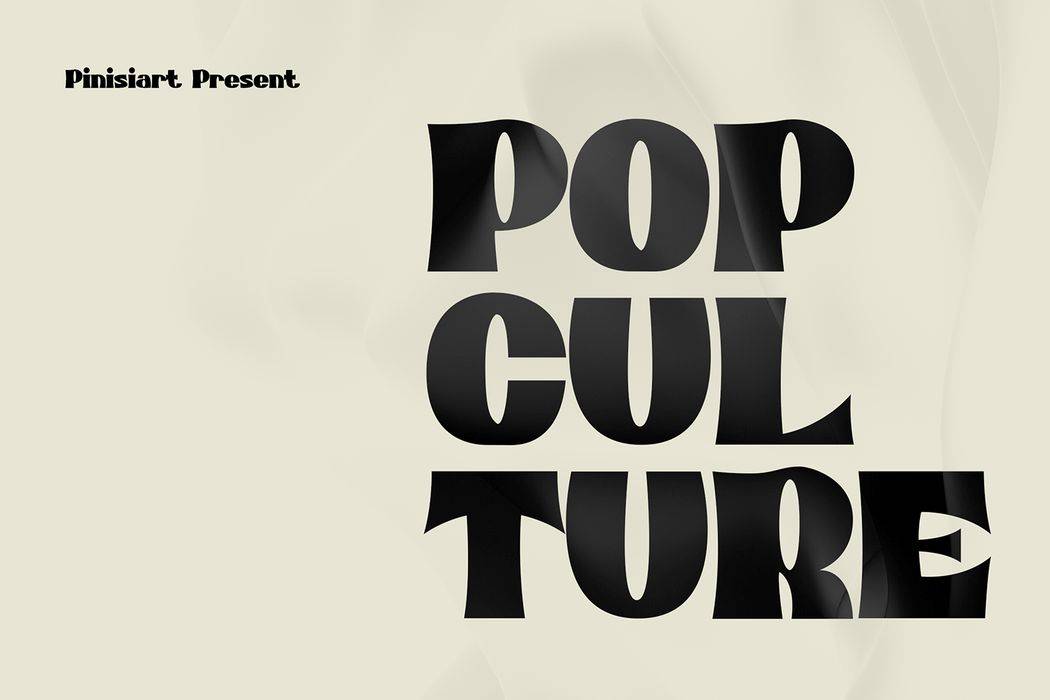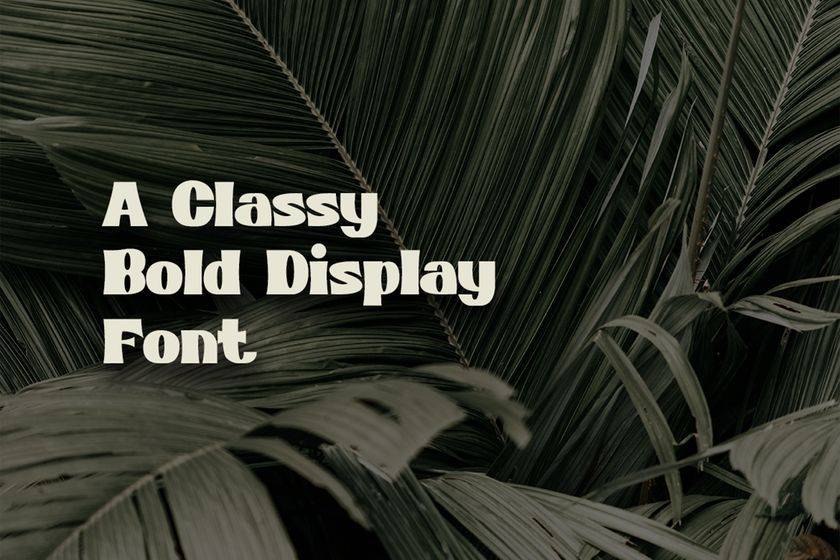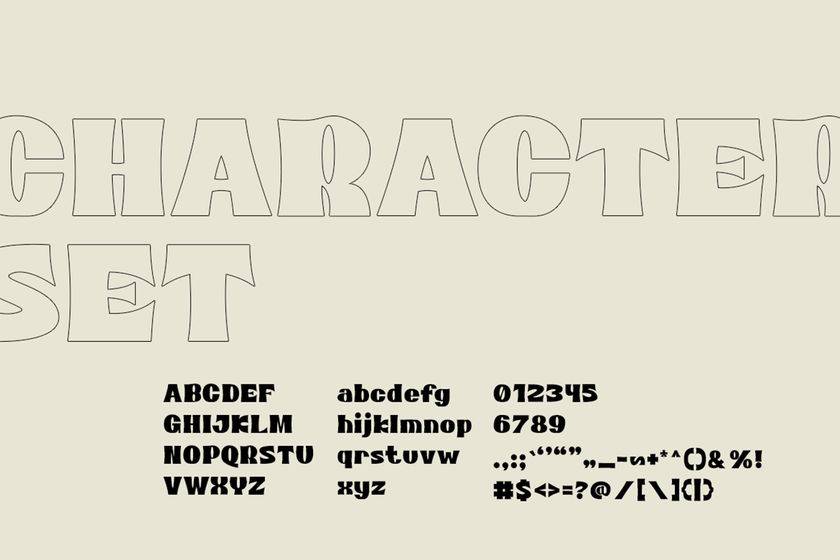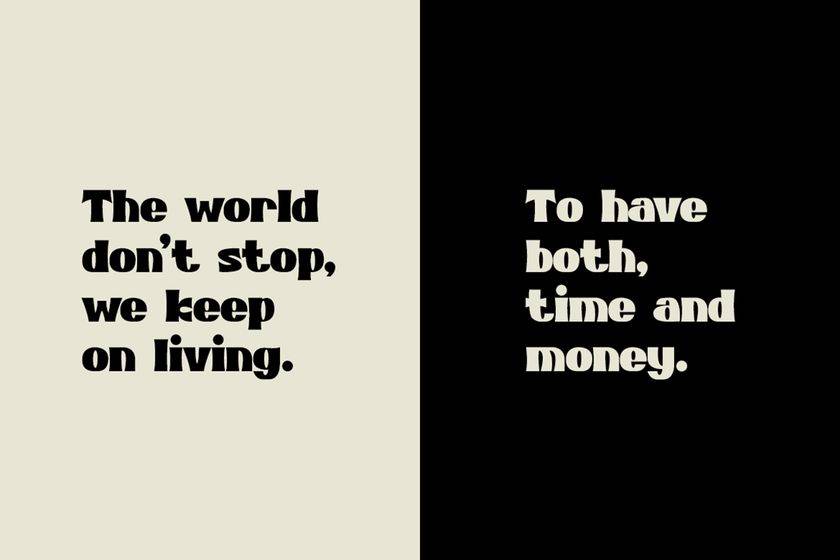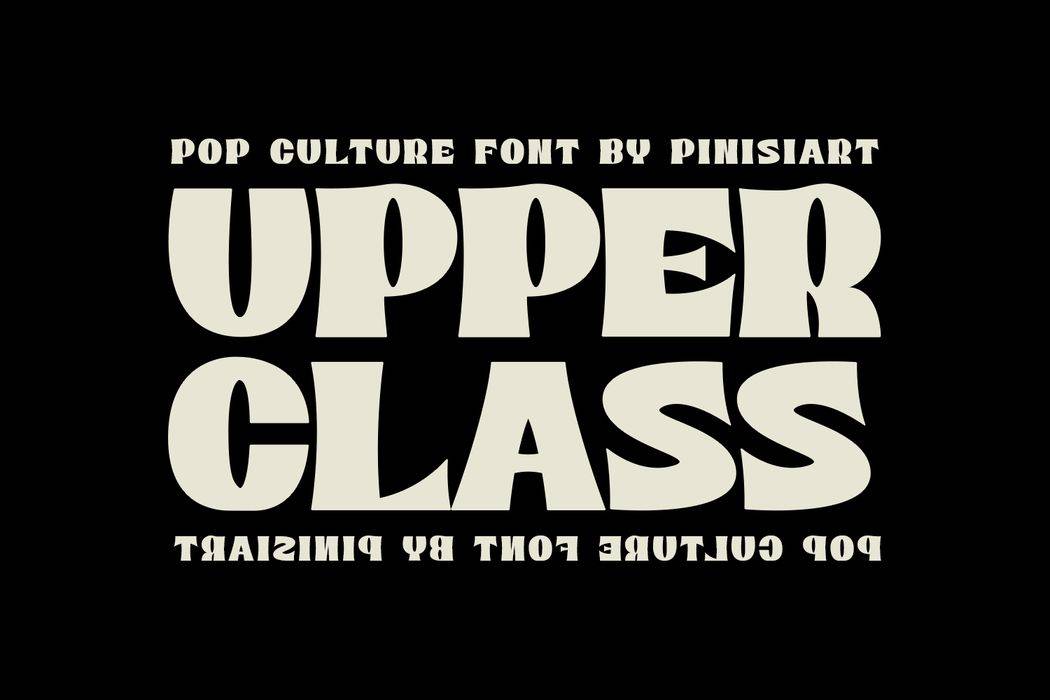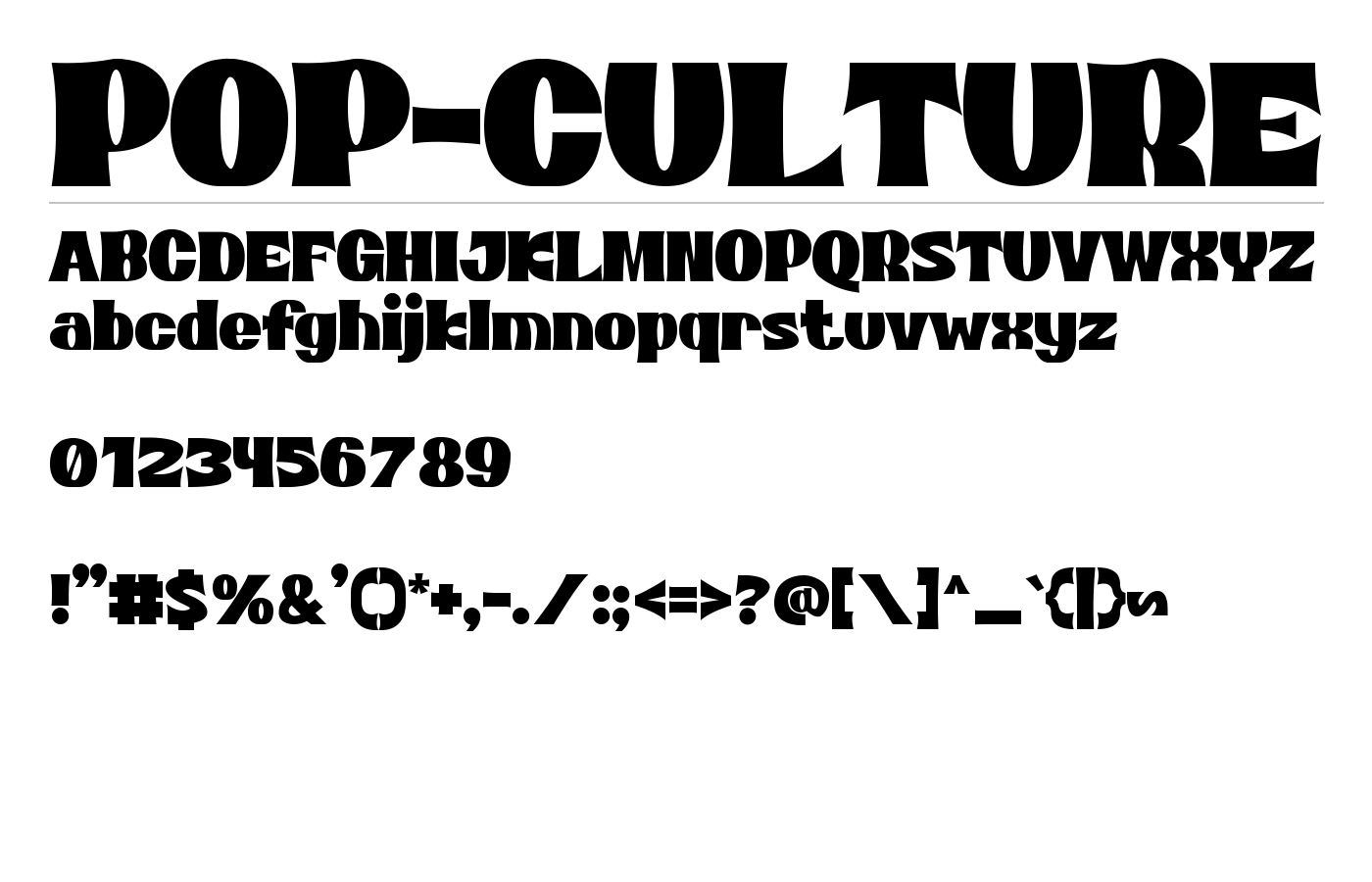
Pop Culture Font is a bold, condensed serif typeface with a strong, playful personality characterized by its chunky letterforms and unique, exaggerated curves. Its high contrast between thick, solid strokes and sharp details gives it a vintage yet dynamic feel, making it perfect for eye-catching headlines, posters, and branding that aim to convey energy and retro charm. This font works well in creative and entertainment contexts where a bold, fun, and distinctive look is desired.
Pop Culture Font
About Pop Culture Font